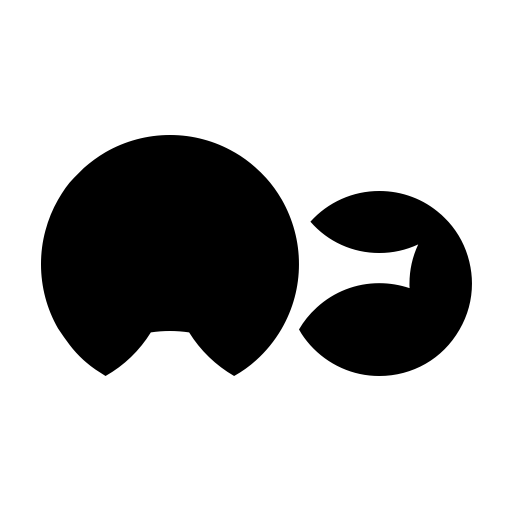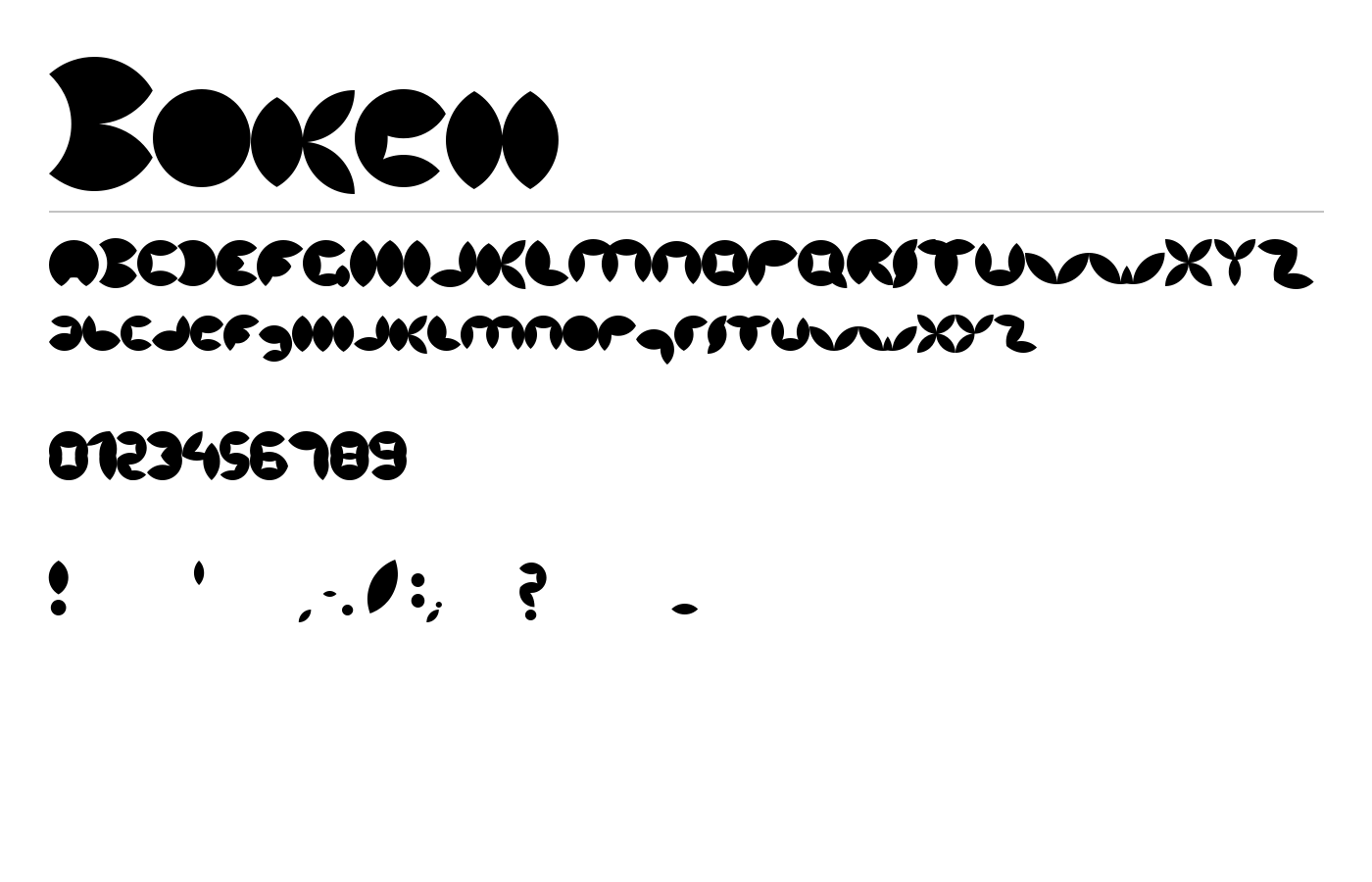
Bokeh Font is a bold, decorative display typeface with a playful and abstract design characterized by rounded, petal-like shapes forming each letter. Its unique, artistic style makes it ideal for creative headlines, logos, and branding projects that seek a modern, eye-catching, and unconventional look. This font works best in large sizes where its distinct forms can shine, adding a fun and dynamic personality to posters, fashion branding, and experimental editorial layouts.
Bokeh Font
About Bokeh Font